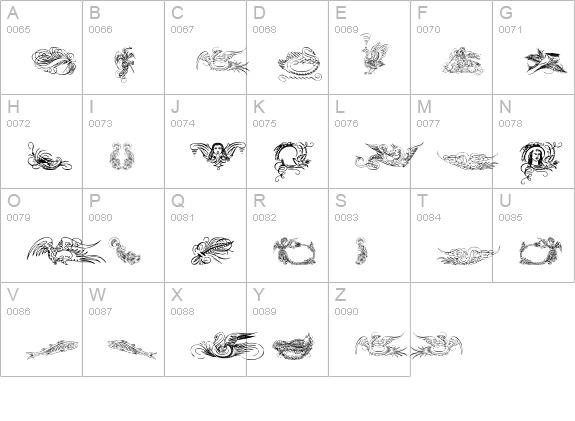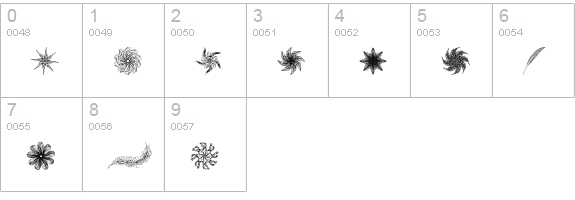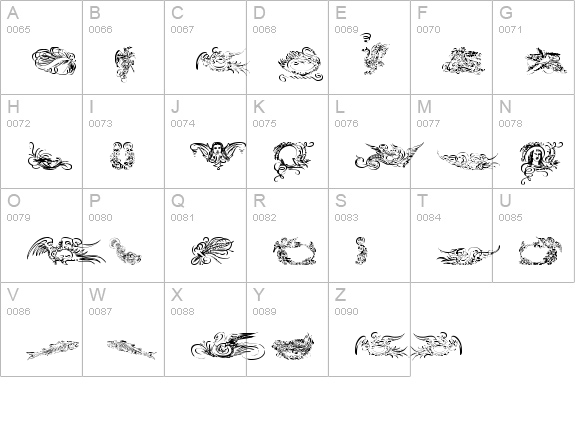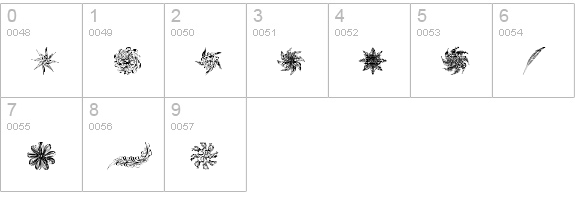
CaligrafiaDivina Font Details
CaligrafiaDivina is a truly divine font that exudes elegance and sophistication. Its intricate calligraphy strokes and flowing curves give your text a touch of timeless beauty and grace. Perfect for adding a touch of luxury to your design projects, whether it's invitations, branding materials, or signage. The CaligrafiaDivina font is not only exquisite in its design but also versatile in its application. It can be used for both formal and informal settings, making it a must-have for any designer's toolkit. With its graceful lines and classic appeal, this font is sure to elevate your creations to new heights. Best of all, CaligrafiaDivina is available for free download at FontsMarket.com. So, whether you're a professional designer or a hobbyist looking to add a touch of elegance to your projects, this font is easily accessible and ready to enhance your work. Don't miss out on the opportunity to elevate your designs with the timeless beauty of CaligrafiaDivina font.